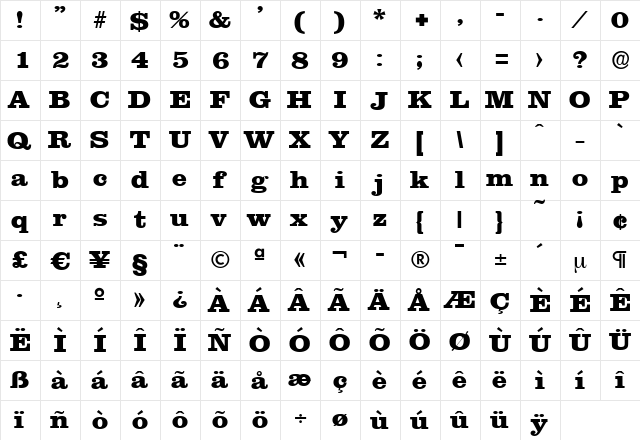
JamesBecker-Heavy Regular Font Preview
JamesBecker-Heavy Regular
JamesBecker-Heavy Regular Font Details
Design Context for JamesBecker-Heavy Typeface
JamesBecker-Heavy takes a measured approach to typography — its balanced proportions and neutral character make it a reliable workhorse for both digital and print work.